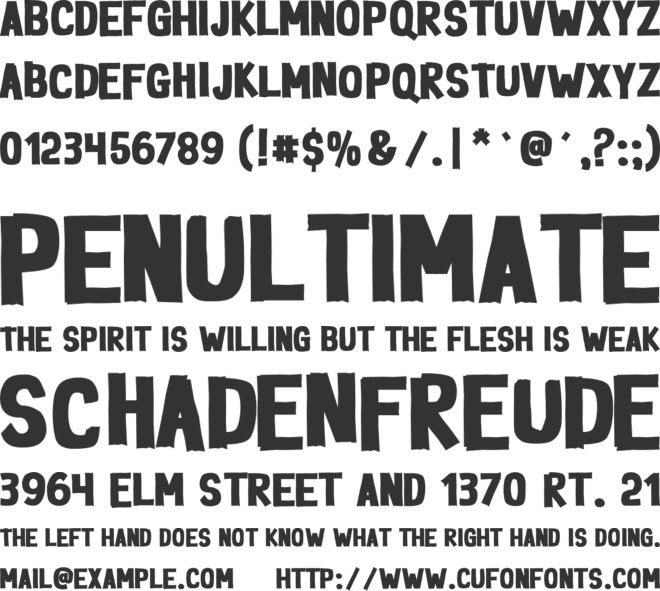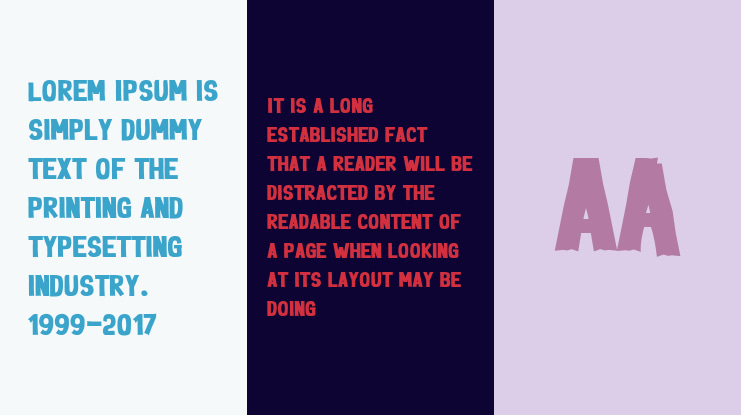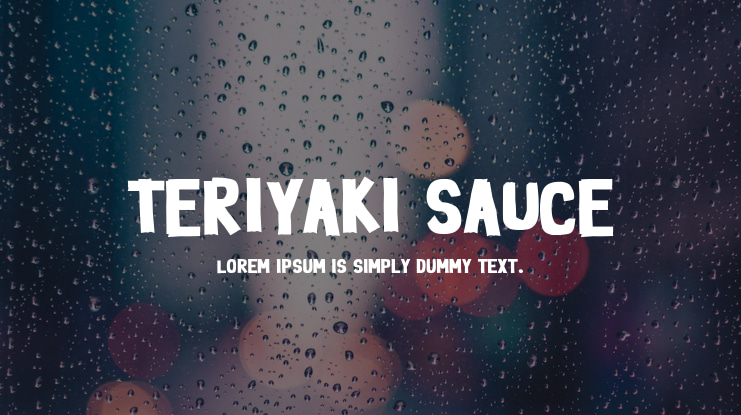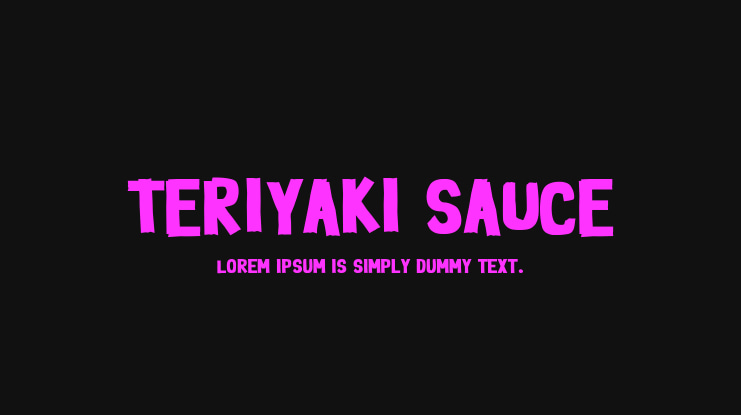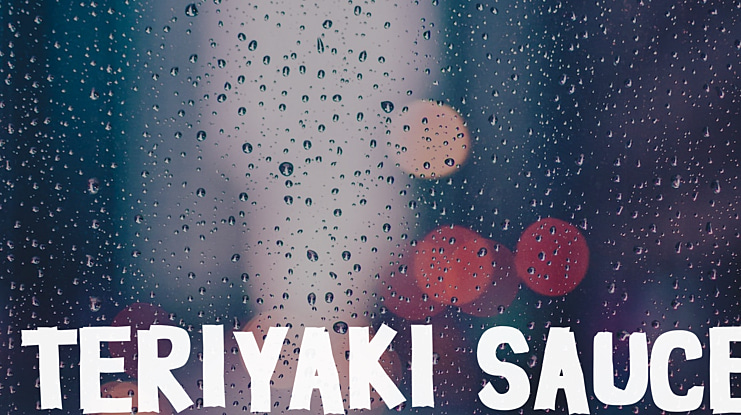
TERIYAKI SAUCE Font
Teriyaki Sauce is a unique and eccentric typeface. Utilize capital letters for a playful touch, or employ lowercase letters for a more traditional look. This font is perfect for a variety of projects, including banners, social media posts, book titles, product packaging, posters, invitations, cards, and much more.